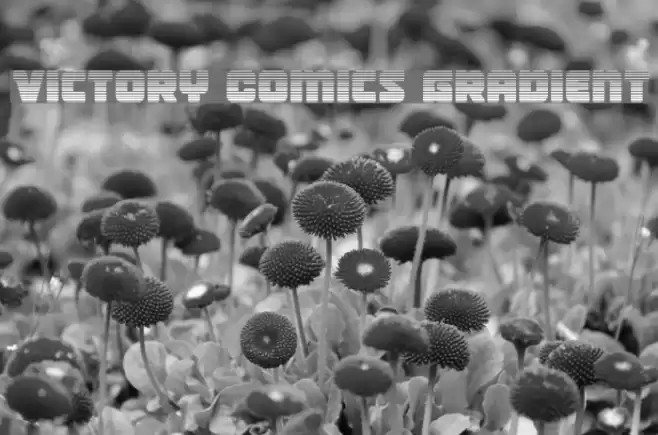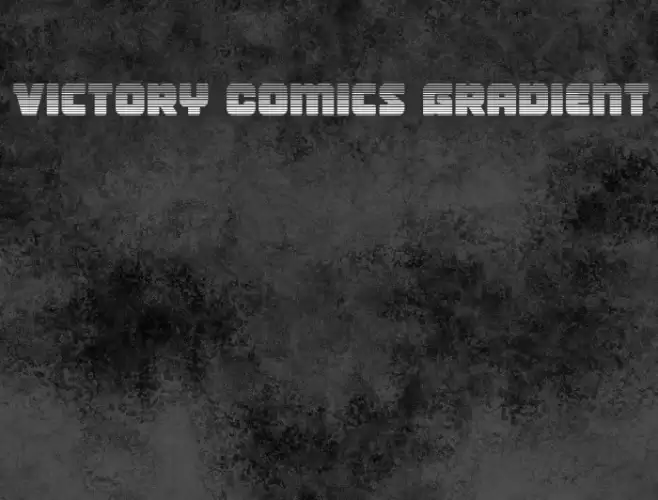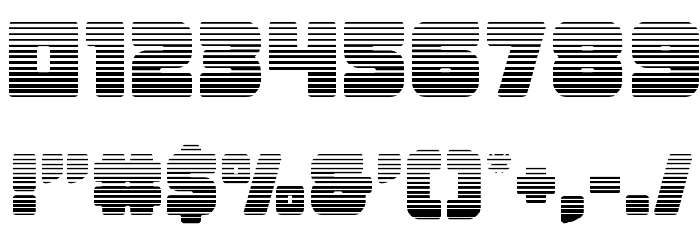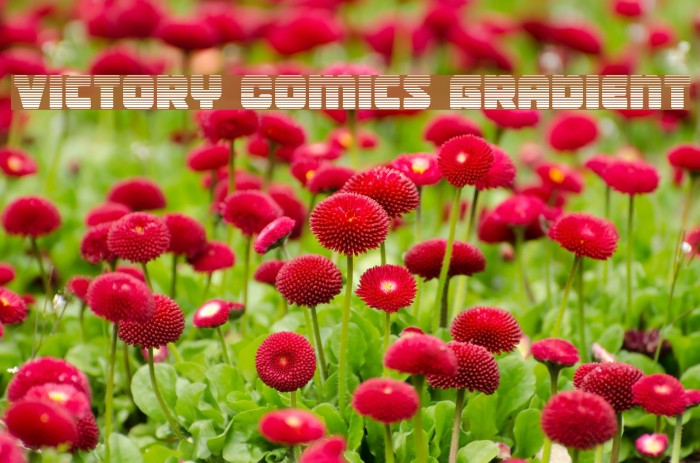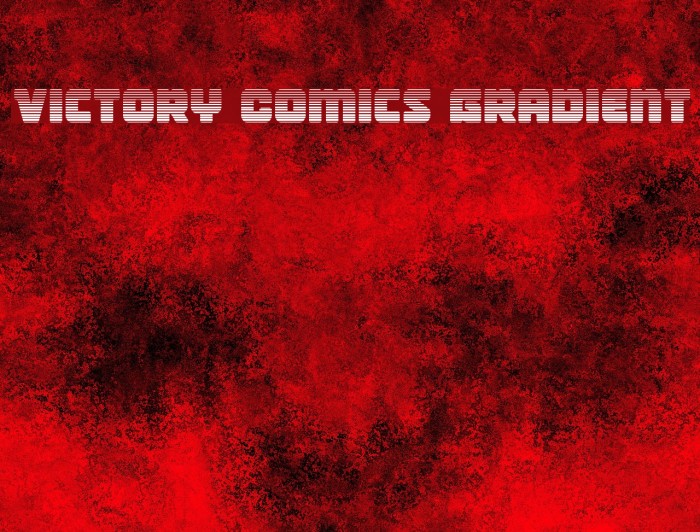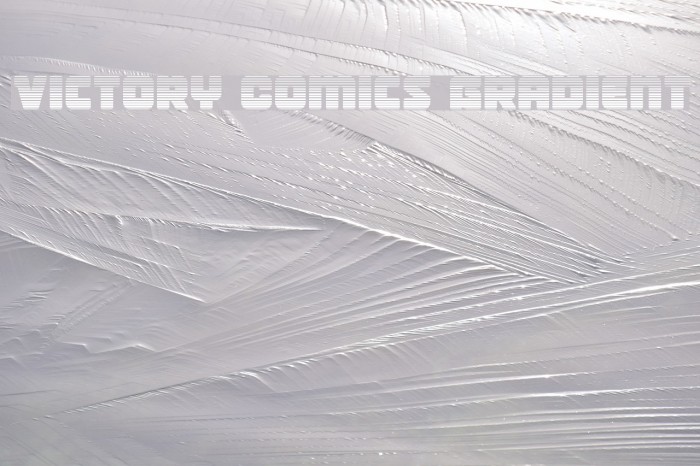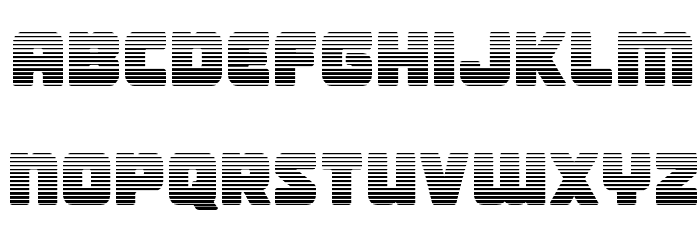
Victory Comics Gradient Font
Victory Comics Gradient Description
This font features a bold, dynamic design with a distinct striped pattern running horizontally through each character, creating a sense of movement and energy. The uppercase and lowercase letters are equally robust, maintaining a consistent width and weight throughout. The numbers and special characters follow the same stylistic approach, ensuring uniformity across all elements. The font's unique gradient effect gives it a modern, futuristic feel, making it ideal for projects that require a strong visual impact.
A bold, striped font with a modern, dynamic gradient effect from Uncategorized fonts.
- Proposed Projects: Ideal for comic book titles, video game graphics, posters, and branding that requires a bold, energetic look.